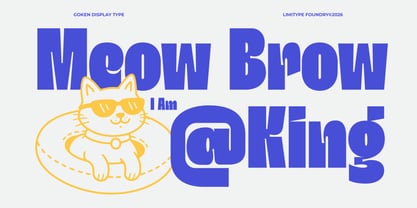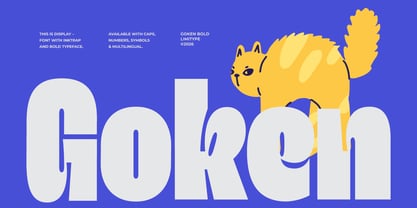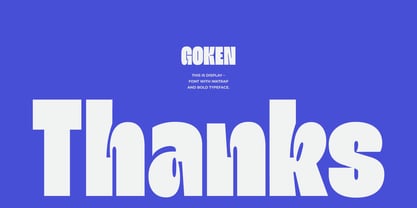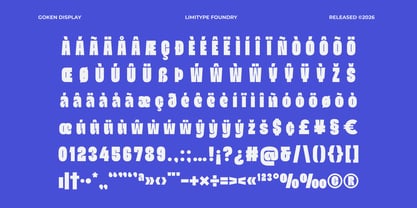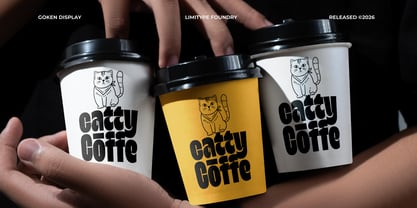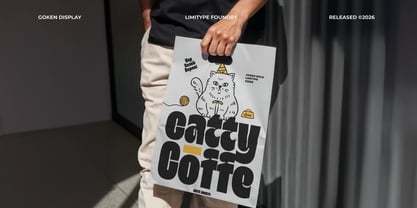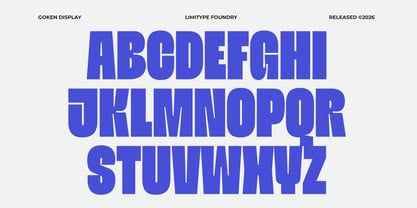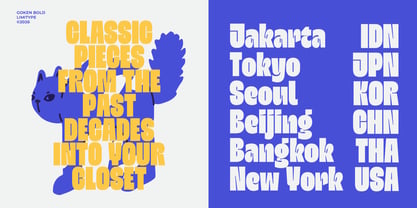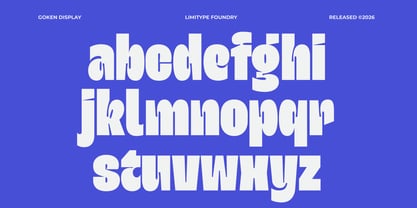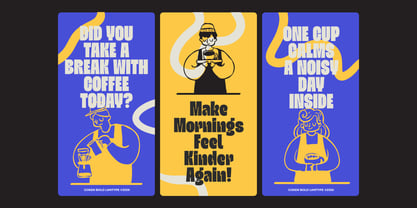
Goken
by limitype
The Goken Font Family was designed by Muhammad Muammar, Furqan Sudirman and published by limitype. Goken contains 1 styles.
Goken is a modern bold display sans typeface with refined inktrap details, designed to deliver clarity and strength in contemporary design systems. Its compact geometric letterforms create a solid visual presence while maintaining clean legibility across print and digital environments. Ideal for headlines, logos, branding systems, editorial layouts, packaging, and signage, Goken offers a confident and versatile character for impactful visual communication. Goken available with: Uppercase Lowercase Number Symbol Multilingual
Designers: Muhammad Muammar, Furqan Sudirman
Publisher: limitype
Foundry: limitype
Design Owner: limitype